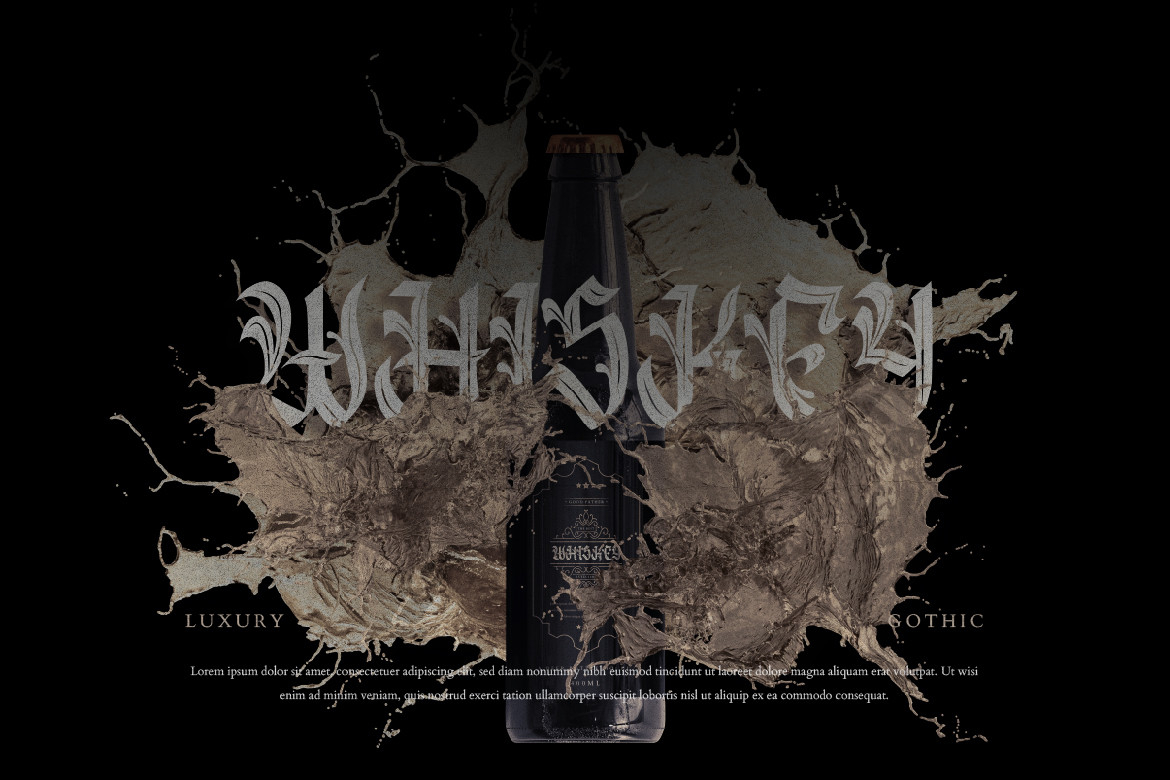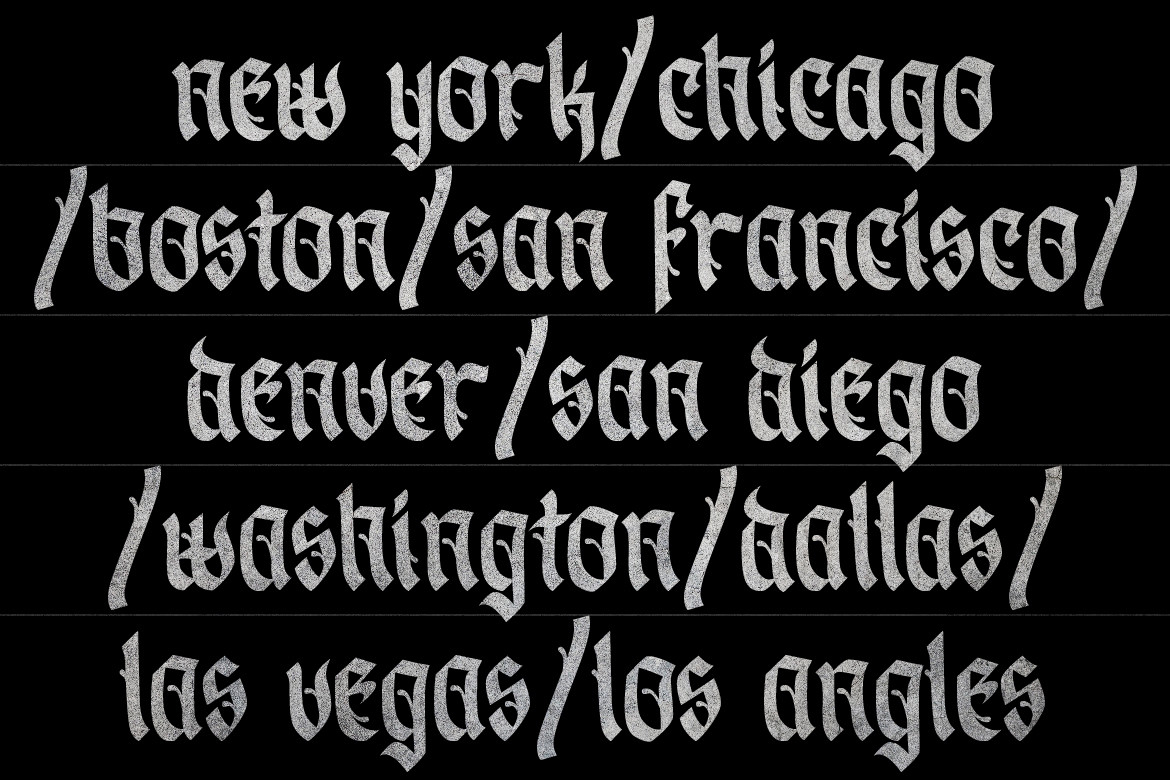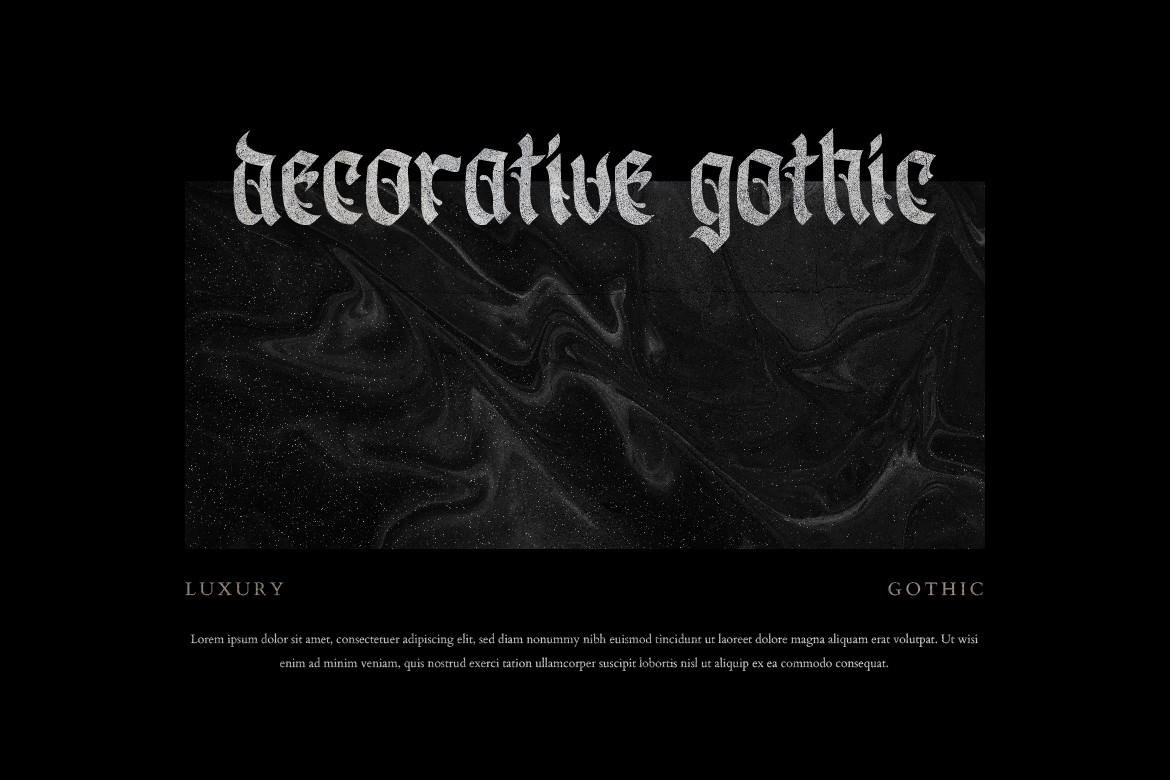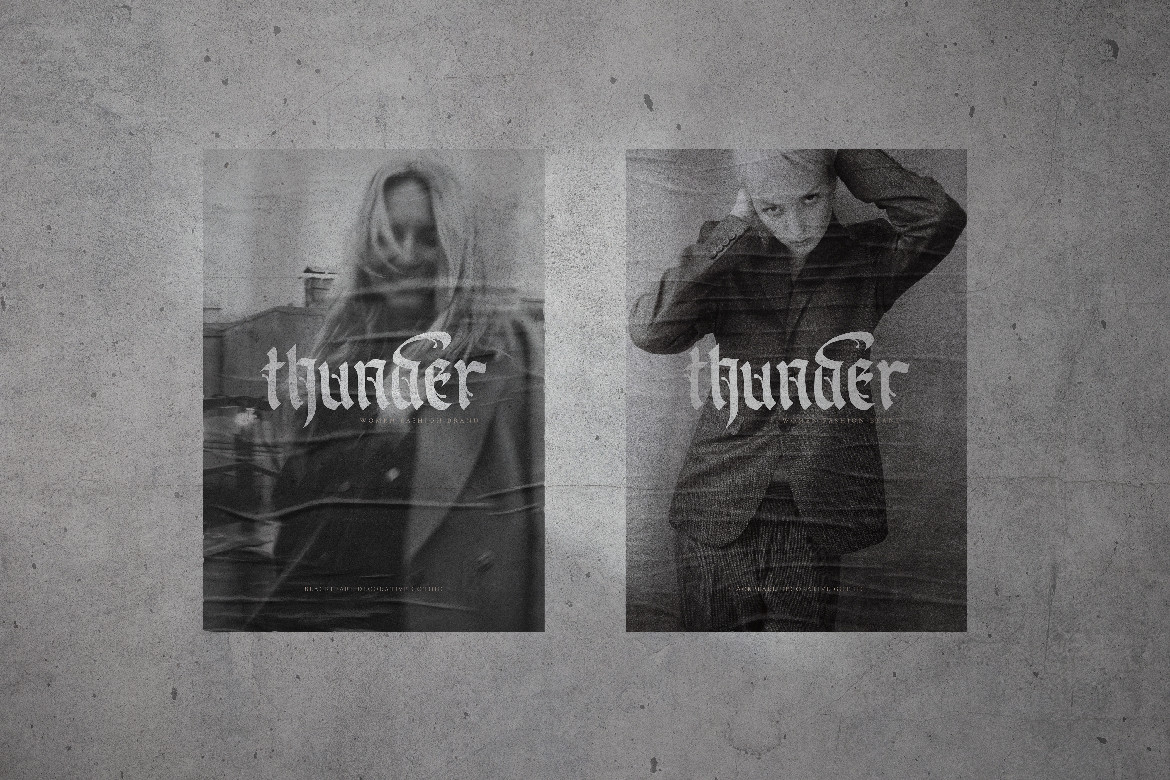
Blackpearl is a cool and gothic inspired blackletter font. It is PUA encoded which means you can access all of the glyphs and swashes with ease!
Blackpearl is perfect for branding projects, logos, wedding designs, social media posts, advertisements, product packaging, and more.